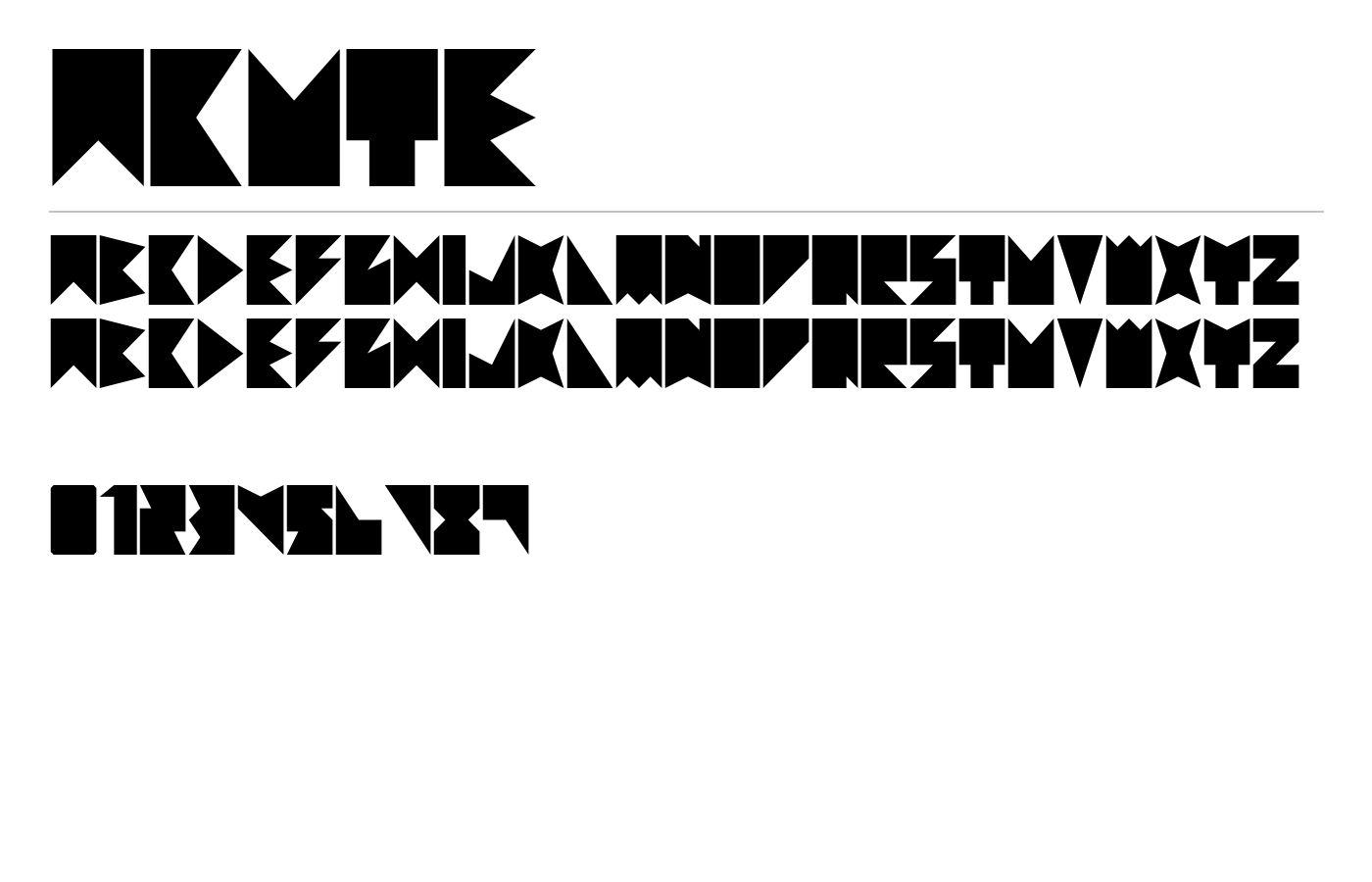
Acute is a bold, geometric display font characterized by sharp angles and strong contrasts formed by solid black shapes. Its unique, edgy letterforms create a striking, modern appearance ideal for attention-grabbing headlines, logos, and graphic designs that aim to convey energy and innovation. This font works best in creative and contemporary contexts where a dramatic and unconventional style is desired.
acute Font
About acute Font